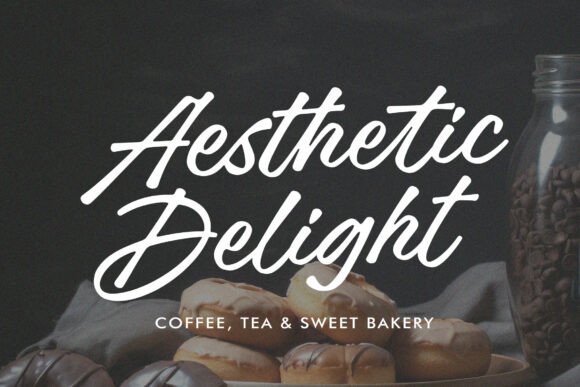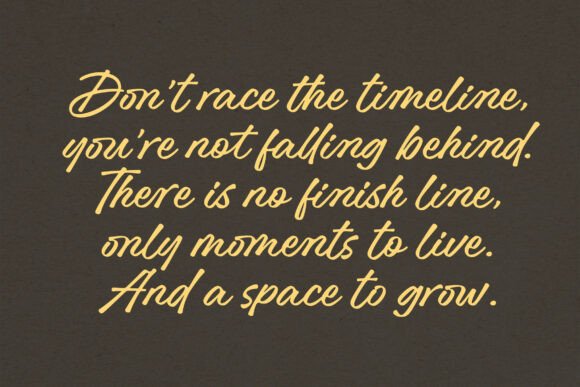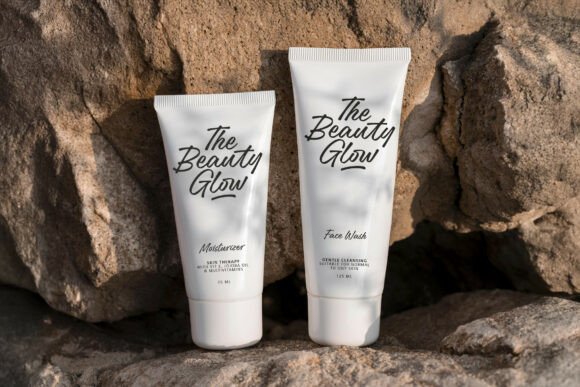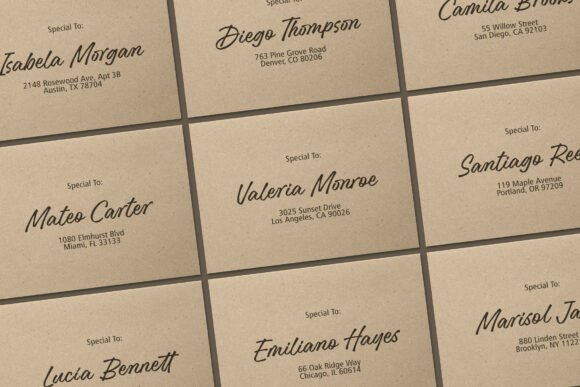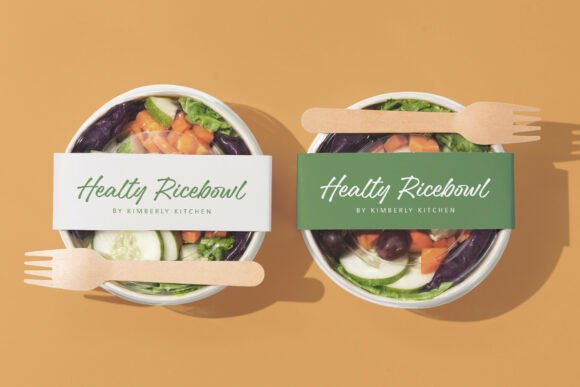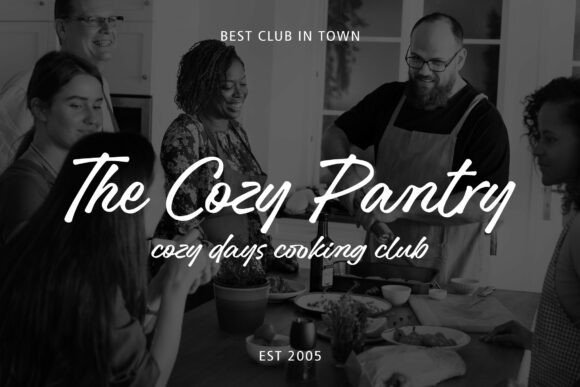
Where Words Come Alive: Introducing Confides Font
Have you ever found yourself scribbling a heartfelt message on a napkin, only to realize that the imperfections and quirks of your handwriting are what make it truly special? That’s the magic of handwritten text – it’s a reflection of our unique personality and style. As designers, we’re always on the lookout for ways to infuse our work with that same warmth and character.
Enter Confides Font, a beautifully crafted handwritten typeface that captures the effortless beauty of natural handwriting. With its smooth strokes and relaxed rhythm, this font brings a personal, friendly touch to any design – from branding and packaging to wedding invites and social media quotes. For designers, Confides Font is a valuable tool for adding a touch of humanity to their work, making it feel fresh, familiar, and beautifully human.
- Unique Character Set: Confides Font features a unique character set that includes a wide range of glyphs, including swashes, ligatures, and ornaments, making it ideal for creative and artistic applications.
- High-Quality Typography: Confides Font is designed to provide high-quality typography, with precise letterforms, balanced proportions, and subtle flair, resulting in a professional and polished look.
Designer Review: Confides Font
As a designer, I’m always on the lookout for fonts that can add a touch of elegance and sophistication to my projects. Confides Font is one such font that caught my attention, and I’m excited to share my honest review with you.
- Confides Font has a beautiful, refined aesthetic that’s perfect for luxury and high-end branding.
- The font’s subtle curves and rounded edges give it a friendly, approachable feel that works well for corporate and professional projects.
- It’s highly legible, even at smaller font sizes, making it a great choice for body text and headings.
- Confides Font may not be the best choice for projects that require a bold, attention-grabbing font, as it’s quite understated.
- The font’s limited character set may make it less suitable for projects that require extensive customization or foreign language support.
Overall, I think Confides Font is a solid choice for designers who want to add a touch of sophistication and elegance to their projects. While it may have some limitations, its unique aesthetic and high legibility make it a great addition to any design arsenal.
Confides Font is commonly used for: creating elegant and sophisticated headings, designing luxury brand identities, and adding a touch of elegance to digital and print materials.